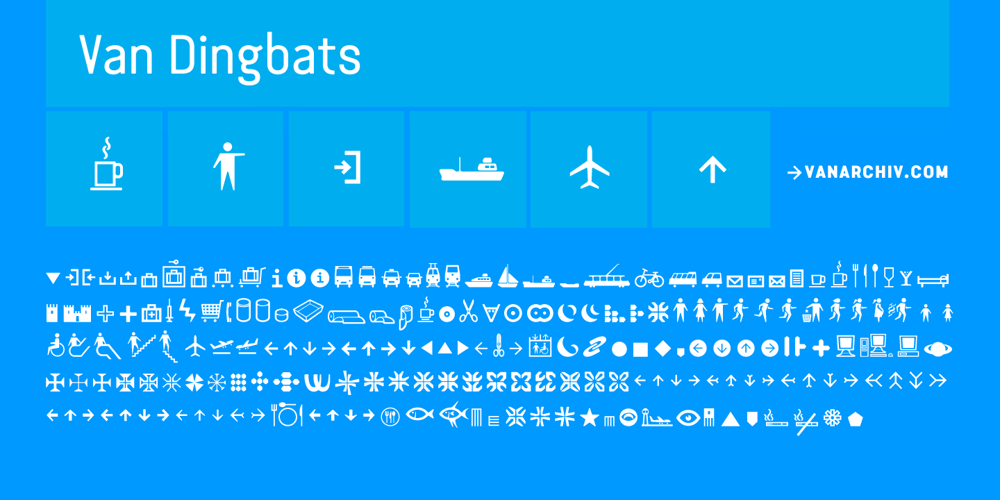
Van Dingbats
Van Dingbats font
Van Dingbats Font Family was designed by Ricardo Santos and published by Vanarchiv. Van Dingbats contains 1 styles and family package options. This Dingbat font is designed to work well with the Van Condensed family. The dingbats in it have the same round treatment like the typeface.